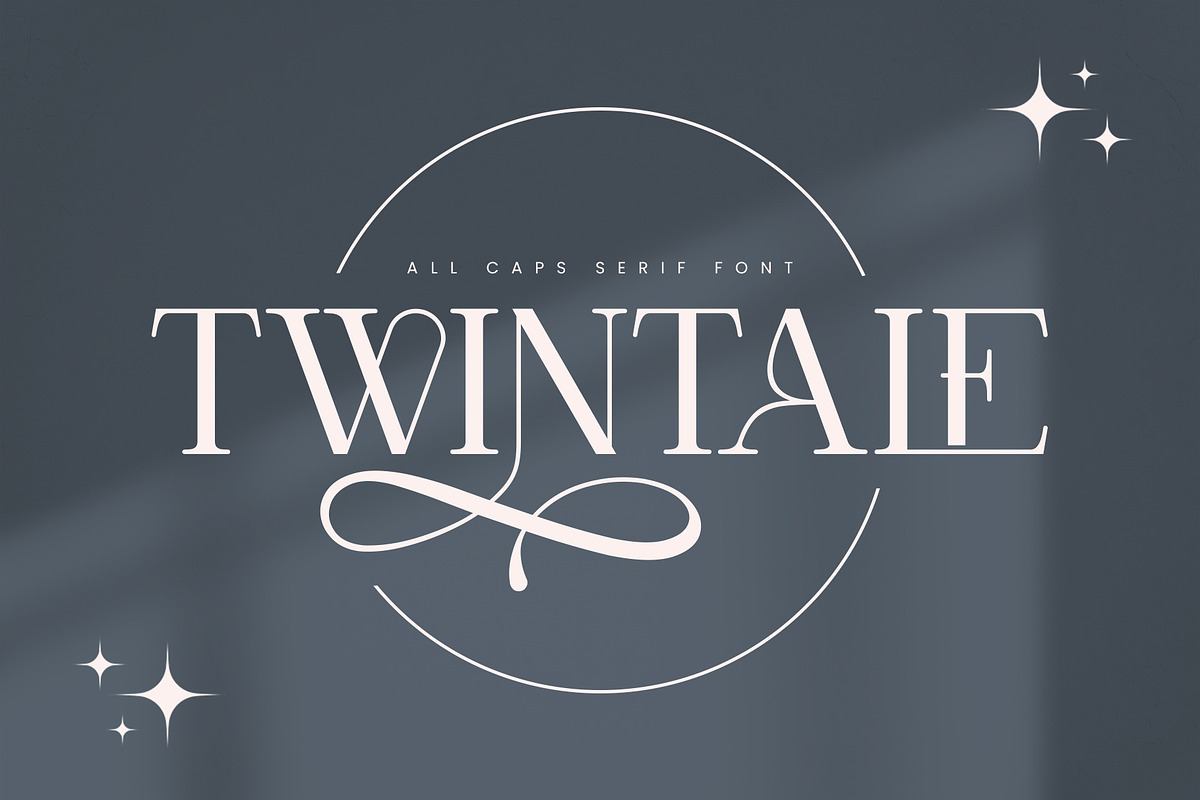
Twintale All Caps Serif Font Free Download
Twintale All Caps Serif Font Free Download is a striking and elegant typeface designed with bold all-caps letterforms. With its sharp, angular serifs and modern detailing, Twintale is perfect for headlines, logos, posters, branding, and high-impact editorial layouts. It combines the timeless appeal of a serif font with a contemporary edge, making it versatile for both classic and modern design projects.
Using the Twintale All Caps Serif Font Free Download adds a bold, confident feel to your designs. Whether you're working on a luxury brand, creating impactful event posters, or designing eye-catching headlines, this font delivers presence and style in every letter.